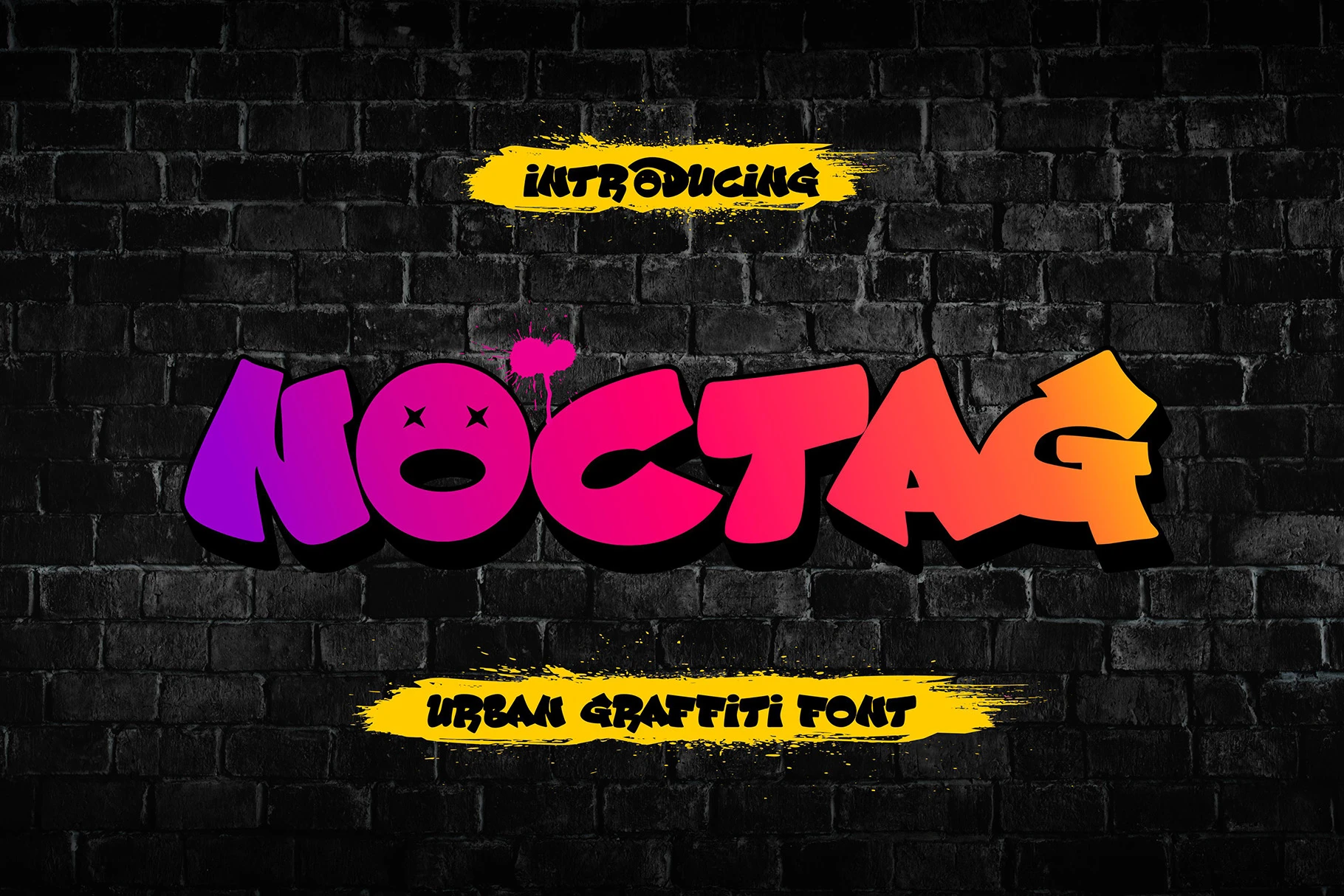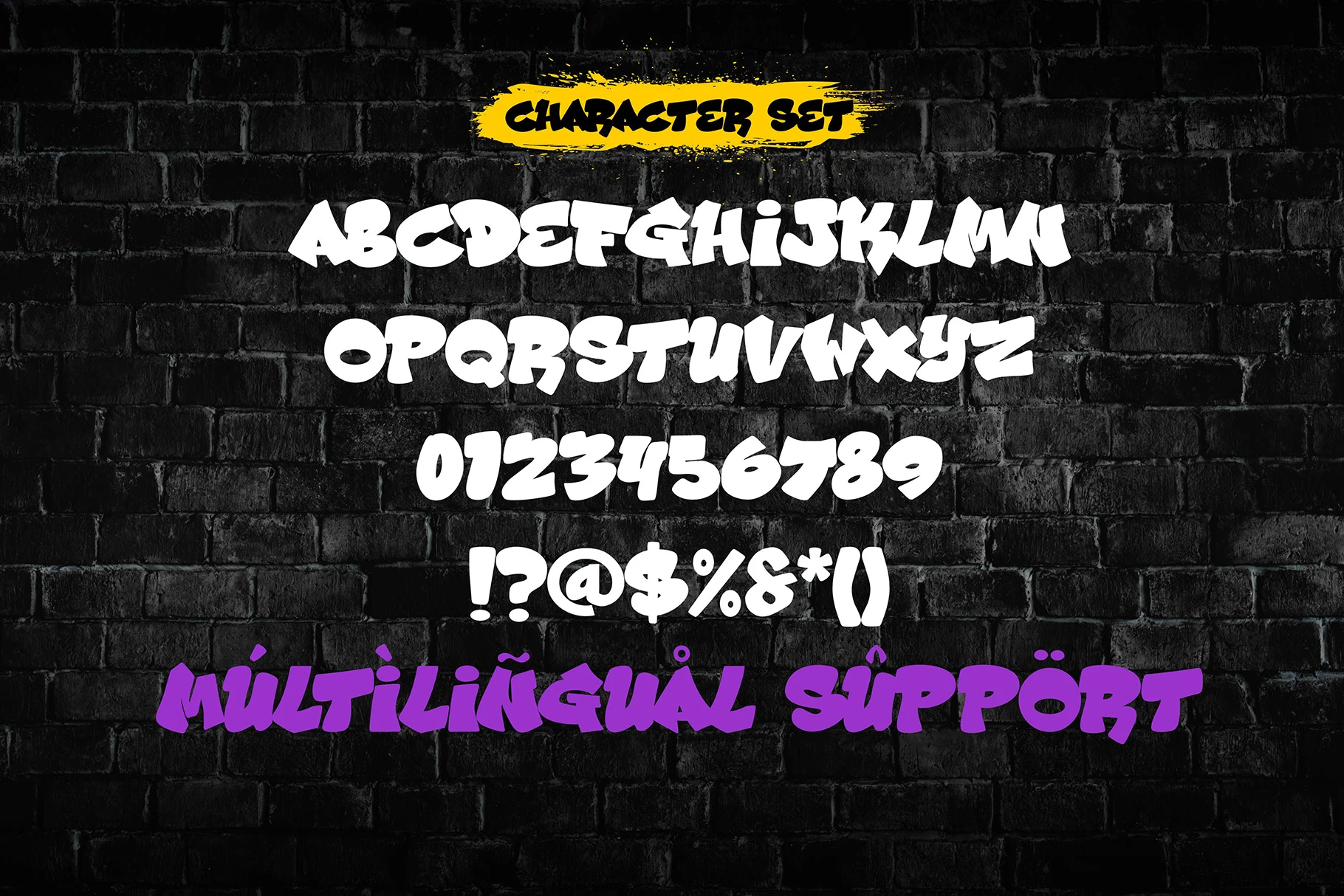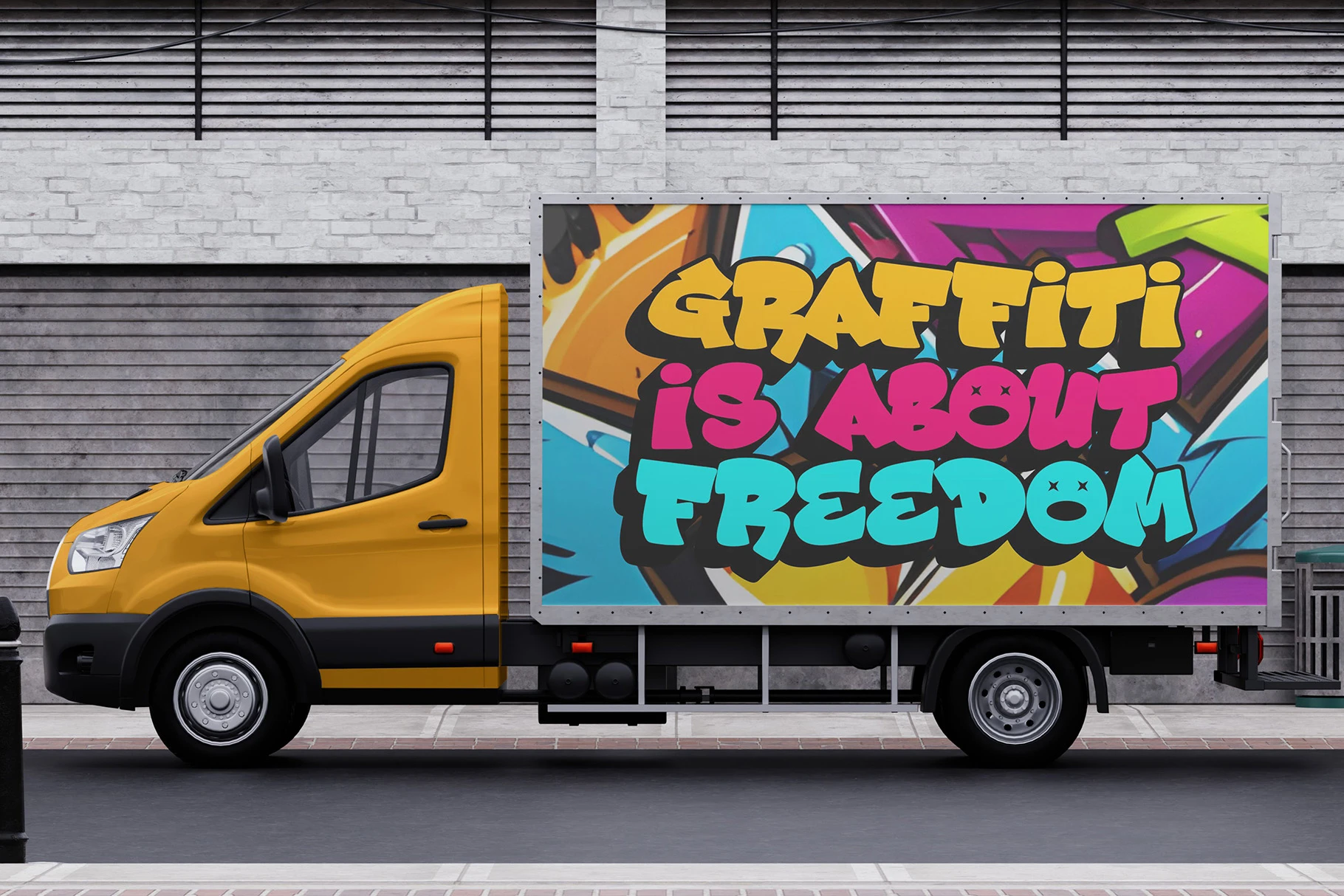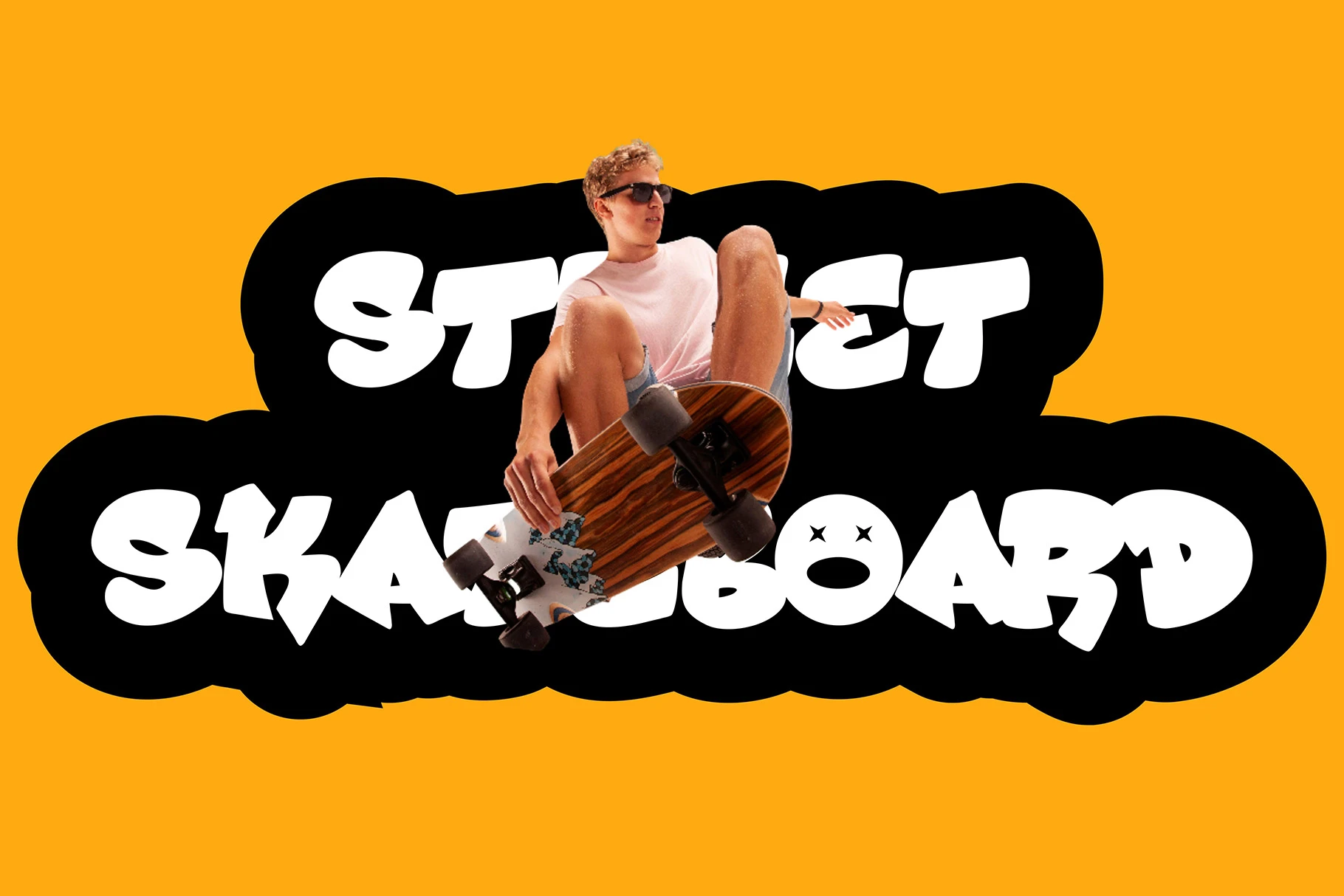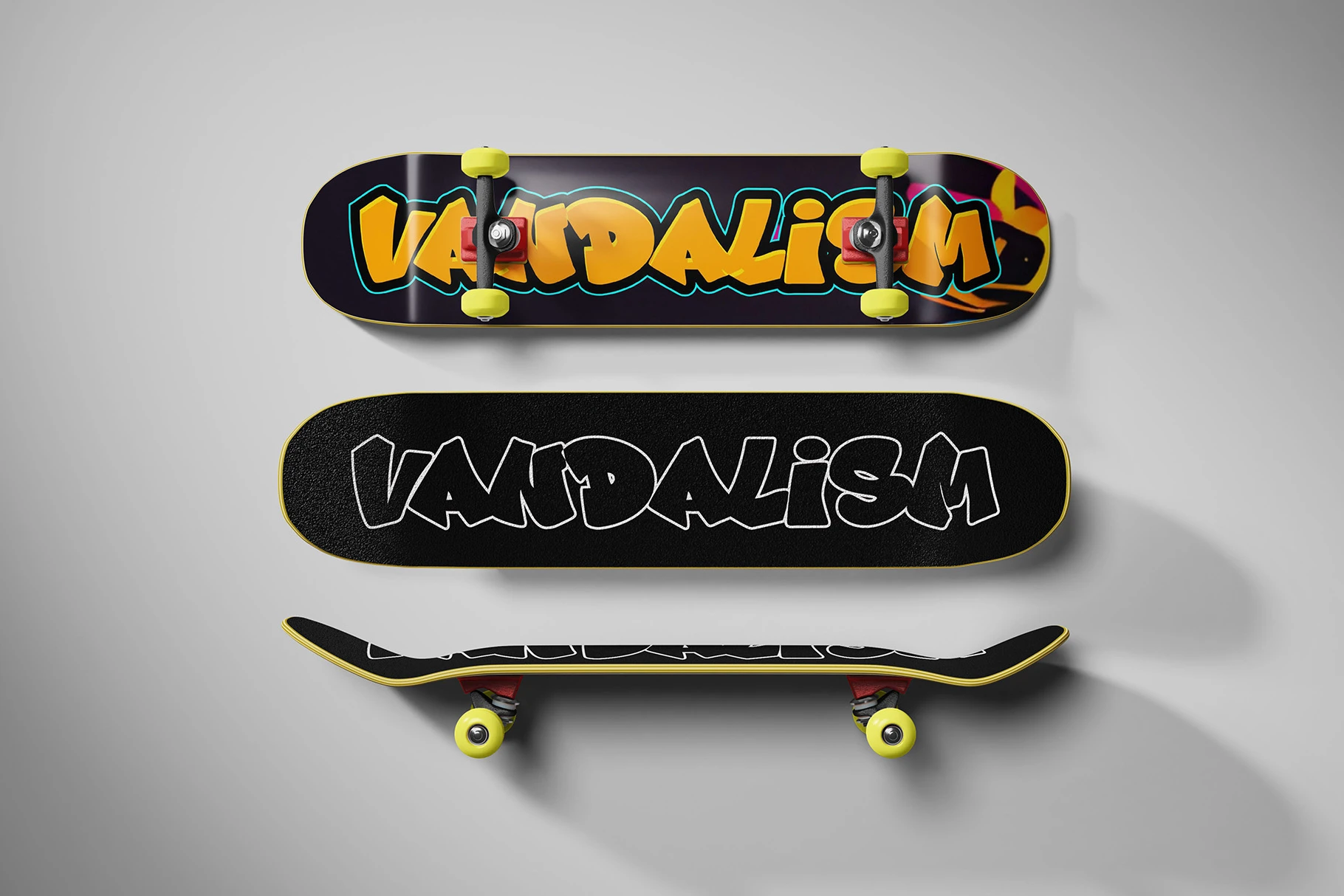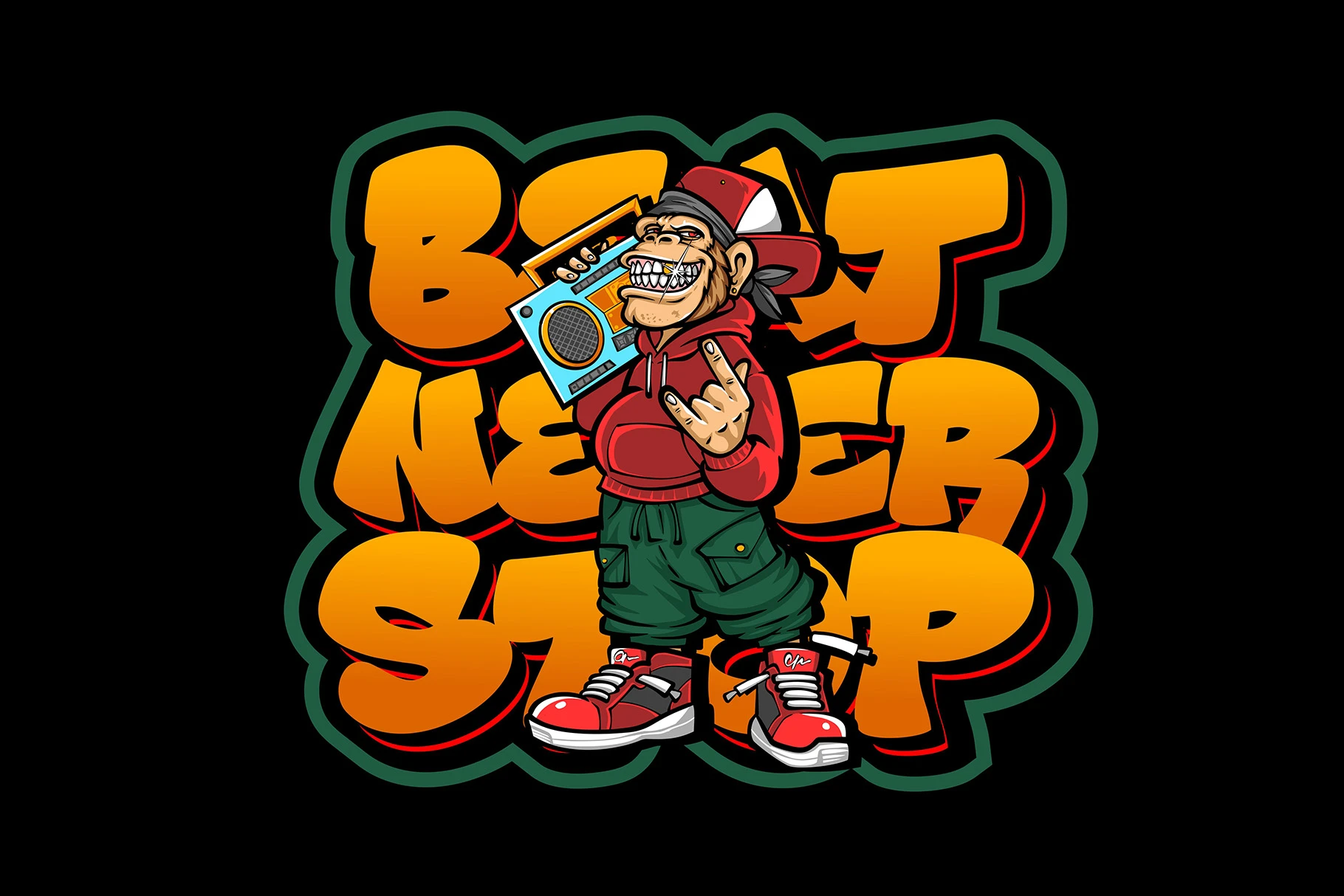
About Noctag
Noctag, a bold and expressive urban graffiti font designed to capture the raw energy of street culture and transform it into powerful visual communication. Inspired by modern graffiti art, underground creative movements, hip-hop culture, and contemporary urban design, Noctag delivers a striking typographic style that instantly commands attention.
This premium graffiti font is crafted for designers, content creators, branding specialists, and creative entrepreneurs who need typography that stands out in competitive visual environments. Whether you’re designing streetwear branding, music artwork, gaming graphics, social media content, merchandise, posters, or advertising campaigns, Noctag provides the authentic urban personality needed to make a lasting impression.
Built with bold letterforms and strong visual rhythm, this street style font combines artistic flair with professional usability. Every character has been carefully designed to deliver maximum impact while maintaining excellent readability, making Noctag an essential addition to any designer’s font library.
A Powerful Urban Graffiti Font for Modern Creators
Noctag is more than just a decorative typeface. It is a complete urban graffiti font created to help designers bring street-inspired aesthetics into professional creative projects. With its bold structure and energetic style, Noctag bridges the gap between authentic graffiti culture and modern graphic design.
The unique personality of this graffiti display font makes it ideal for projects that require a rebellious, creative, and contemporary visual identity. Its strong forms help typography become a focal point, allowing designers to communicate messages with confidence and impact.
In today’s digital landscape, standing out is essential. Noctag provides the visual strength needed to cut through crowded social media feeds, advertising campaigns, and branding materials. Whether used for large headlines or eye-catching promotional graphics, this urban display font consistently delivers outstanding results.
Inspired by Street Culture and Graffiti Art
Street art has always been a symbol of creativity, individuality, and self-expression. Noctag embraces these principles by incorporating the dynamic energy of graffiti culture into a versatile and professional street font.
The character design reflects the spontaneous movement and bold attitude commonly found in urban murals and graffiti lettering. At the same time, Noctag maintains a structured design system that ensures consistency and usability across various creative applications.
This balance between artistic expression and professional functionality makes Noctag a valuable tool for designers seeking an authentic graffiti typography font that performs exceptionally well in both print and digital environments.
Designed for High-Impact Typography
One of the strongest advantages of Noctag is its ability to create immediate visual impact. Every letter has been designed with attention to weight, spacing, and character consistency, resulting in a bold graffiti font that captures attention without sacrificing readability.
Whether you’re developing a fashion brand, designing a concert poster, or creating social media graphics, Noctag helps transform ordinary text into compelling visual content.
Its bold construction makes it particularly effective for:
- Streetwear branding
- Urban fashion campaigns
- Music album artwork
- Hip-hop promotions
- Gaming graphics
- Esports branding
- Merchandise design
- YouTube thumbnails
- Event posters
- Social media advertising
- Creative packaging
- Logo design
- Digital marketing materials
This versatility makes Noctag a reliable choice for designers working across multiple creative industries.
✓ Authentic Urban Graffiti Font
Inspired by contemporary graffiti culture and urban design trends.
✓ Bold Display Typography
Designed to create strong visual impact in headlines, branding, and promotional graphics.
✓ Professional Character Construction
Carefully crafted letterforms ensure excellent readability and consistency.
✓ Modern Street Style Aesthetic
Perfect for projects that require a fresh, energetic, and creative urban appearance.
✓ Versatile Creative Applications
Works beautifully across fashion, gaming, music, merchandise, advertising, and social media design.
✓ High-Impact Visual Presence
Transforms simple text into attention-grabbing typography.
✓ Easy to Use
Compatible with popular design software and suitable for both beginners and professionals.
Character Support
Uppercase Characters
Noctag includes a complete set of bold uppercase characters designed to maintain a consistent urban graffiti style throughout your typography projects.
Multilingual Support
This urban graffiti font includes multilingual support, allowing designers to create international projects with broader language compatibility and professional flexibility.